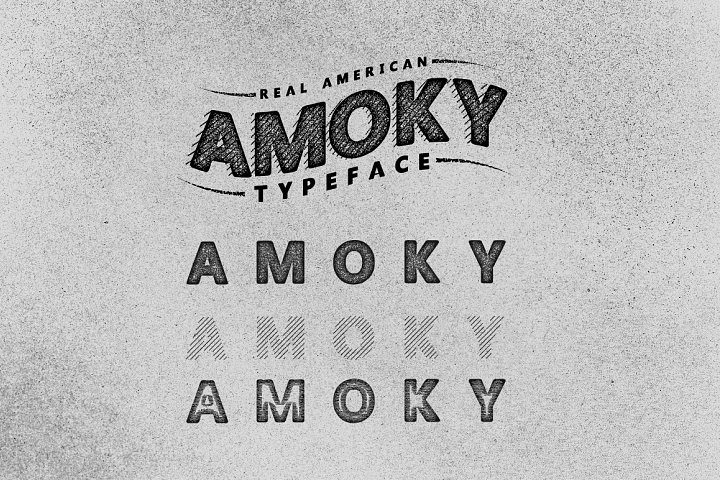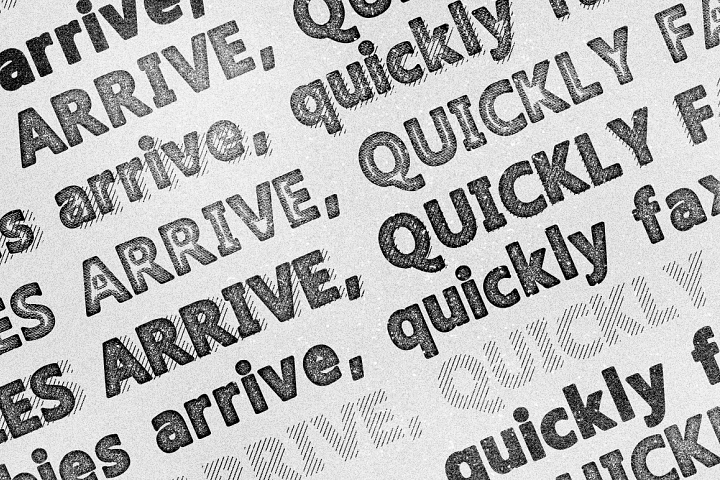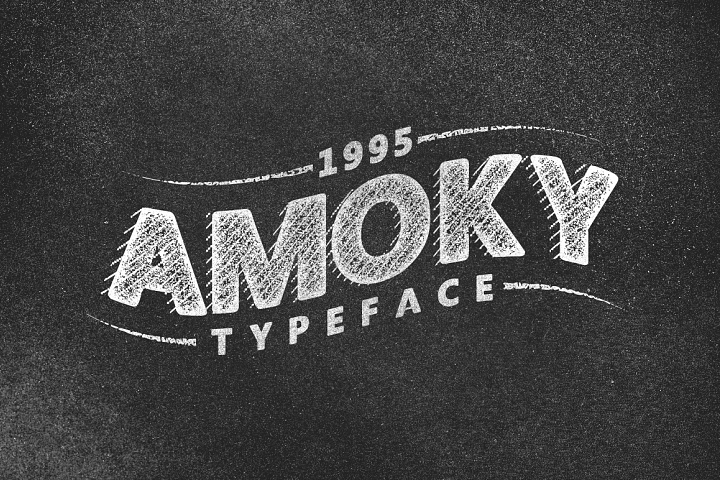
The Amoky Font: A Comprehensive Guide for Designers and Crafters
In the world of typography, fonts play a crucial role in conveying messages, expressing emotions, and creating visual identities. Among the numerous fonts available, the Amoky font has gained significant attention in recent times. In this article, we’ll delve into the world of Amoky font, exploring its features, uses, and benefits for designers and crafters.
What is the Amoky Font?
The Amoky font is a unique and creative typeface that has been designed to cater to the needs of designers, crafters, and artists. With its distinctive style and characteristics, Amoky font has become a popular choice for various design projects, including logos, branding, packaging, and more.
Key Features of the Amoky Font
The Amoky font boasts several key features that make it stand out from other fonts. Some of its notable features include:
- Unique letterforms: The Amoky font features distinctive letterforms that are both elegant and quirky.
- Hand-drawn style: The font has a hand-drawn style, which gives it a personal and artistic touch.
- Versatile: The Amoky font is highly versatile and can be used for a wide range of design projects.
- Easy to read: Despite its unique style, the Amoky font is easy to read, making it suitable for body text and headlines.
Uses of the Amoky Font
The Amoky font is an excellent choice for various design projects, including:
- Logo design: The Amoky font is perfect for creating unique and memorable logos that stand out from the crowd.
- Branding: The font can be used to create a consistent visual identity for brands, including business cards, letterheads, and packaging.
- Packaging design: The Amoky font can add a touch of elegance and sophistication to packaging designs.
- Art and craft projects: The font is also suitable for art and craft projects, such as scrapbooking, journaling, and mixed media art.
Benefits of Using the Amoky Font
Using the Amoky font offers several benefits for designers and crafters, including:
- Unique designs: The Amoky font allows designers to create unique and distinctive designs that stand out from the crowd.
- Time-saving: The font is easy to use and can save designers time and effort in creating custom typography.
- Consistency: The Amoky font can help designers maintain consistency in their designs, which is essential for building a strong visual identity.
- Flexibility: The font is highly versatile and can be used for a wide range of design projects.
Tips for Using the Amoky Font
To get the most out of the Amoky font, here are some tips to keep in mind:
- Use it sparingly: While the Amoky font is beautiful, it’s best to use it sparingly to avoid overwhelming the design.
- Pair it with other fonts: The Amoky font can be paired with other fonts to create a unique and interesting typography.
- Experiment with colors: The font can be used with a variety of colors to create different moods and effects.
- Pay attention to spacing: Make sure to pay attention to spacing and kerning to ensure that the text is easy to read.
| Font Name | Amoky Font |
| Author | Leonard Posavec |
The Amoky font is a unique and creative typeface that offers a range of benefits for designers and crafters. With its distinctive style, versatility, and ease of use, it’s an excellent choice for various design projects. By following the tips outlined in this article, designers can get the most out of the Amoky font and create stunning designs that stand out from the crowd.